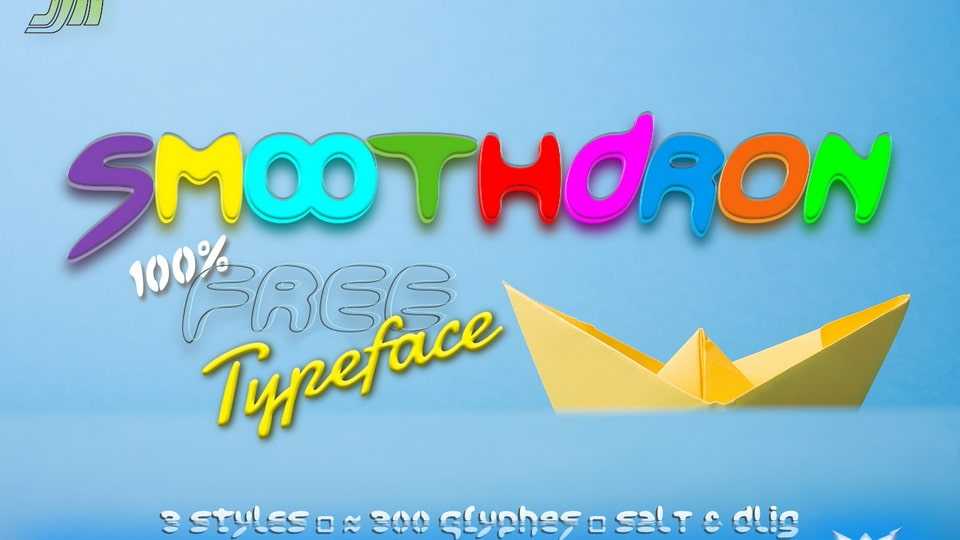
Download Smoothdron font, a fun and playful typeface, a comica typeface that is perfect for displays and headlines. Smoothdron font comes with tons of glyphs so you can have a wide range of style options.
Designer: Jvne77 Studio